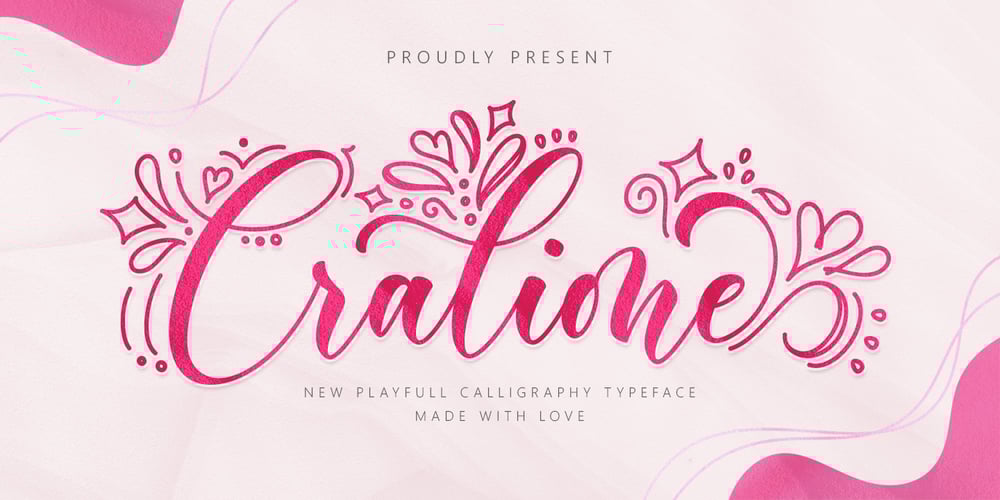
Cralione Font Family was designed by Jamaluddin and published by Jamalodin. Cralione contains 1 styles and family package options. Cralione Script Now Comes with updated neater glyphs, more stable kerning size, new punctuation & numbers. Cralione is a beautiful modern calligraphy script font that is suitable for branding, invitations, greeting cards, posters, name card, quotes, blog header, logo, fashion, apparel, letter, stationery and other projects.To access all OpenType Stylistic alternates, you need a program that supports OpenType features such as Adobe Illustrator, Adobe Photoshop, CorelDraw and Microsoft word.